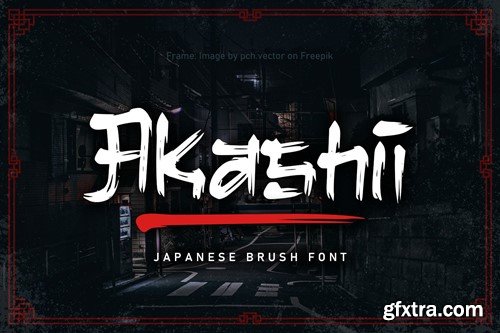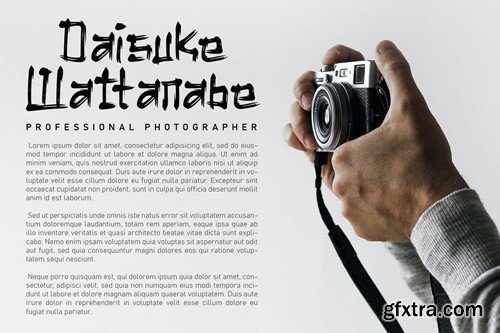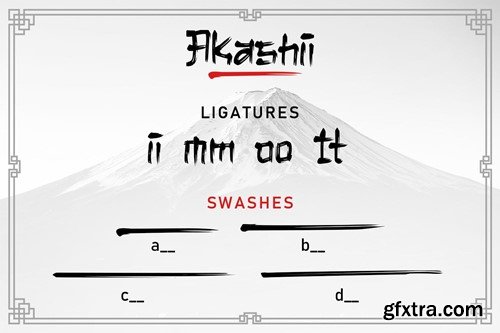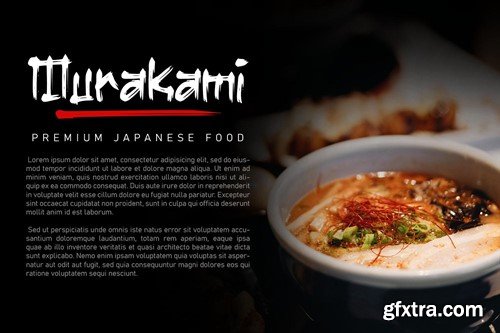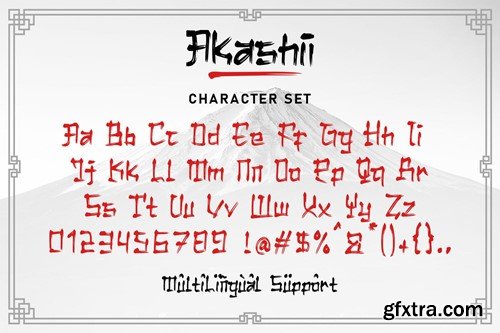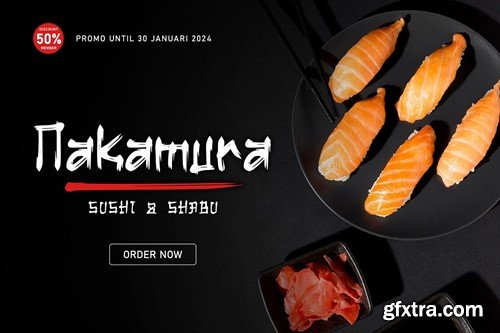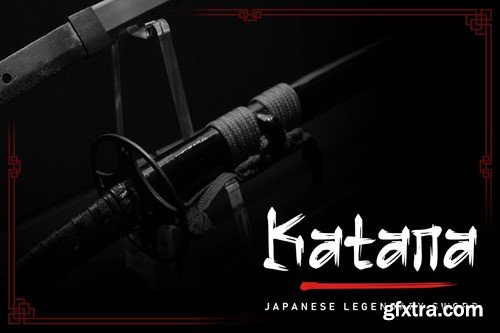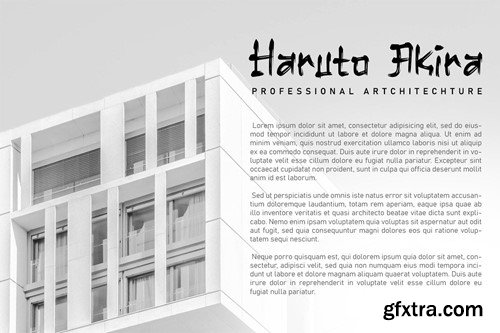
Akashii - 日本书法字体 585ZPCW
Step into the artful world of Akashii, a Japanese brush font that embodies the beauty of traditional calligraphy with a contemporary flair. Crafted with precision and inspired by the elegance of brush strokes, Akashii is a visual symphony that captures the spirit of Japan's rich artistic heritage. The strokes of Akashii tell a story, conveying both strength and grace. Whether you're designing invitations, branding materials, or adding a touch of Eastern charm to your artistic creations, Akashii elevates your work with its unique cultural character. Dive into the world of Akashii and let your designs resonate with the poetic elegance of Japanese calligraphy. This brush font is more than a typeface; it's a brushstroke of cultural authenticity, inviting you to infuse your projects with the artistry of Japan. FONT FEATURES WHAT INCLUDE IN THIS FILE Akashii.OTF Akashii.TTF Akashii.WOFF2 SOFTWARE RECOMMENDATION